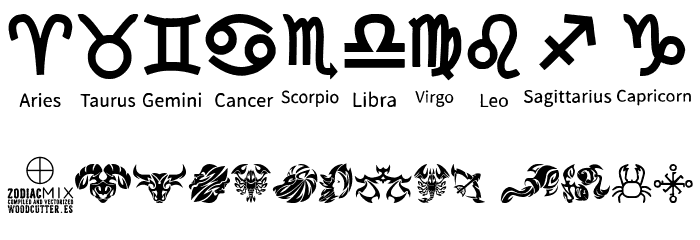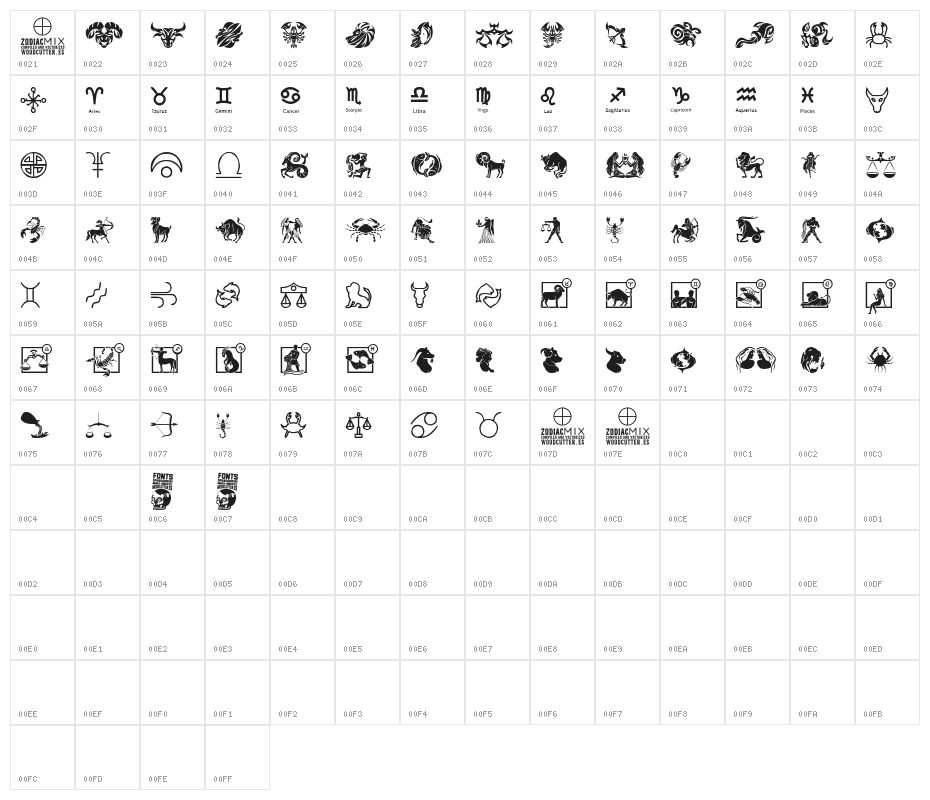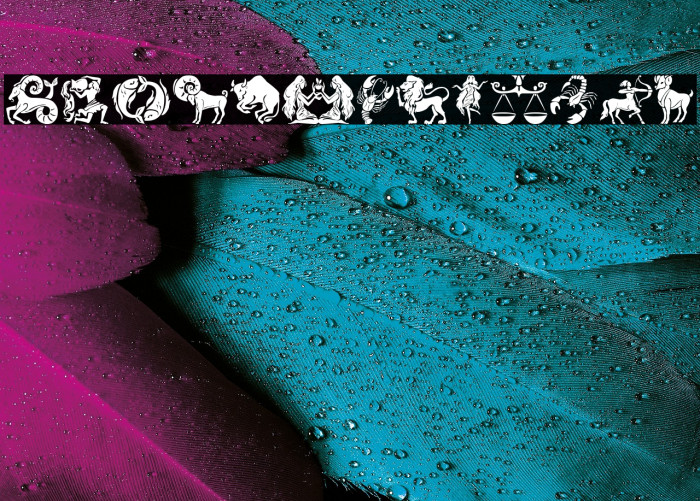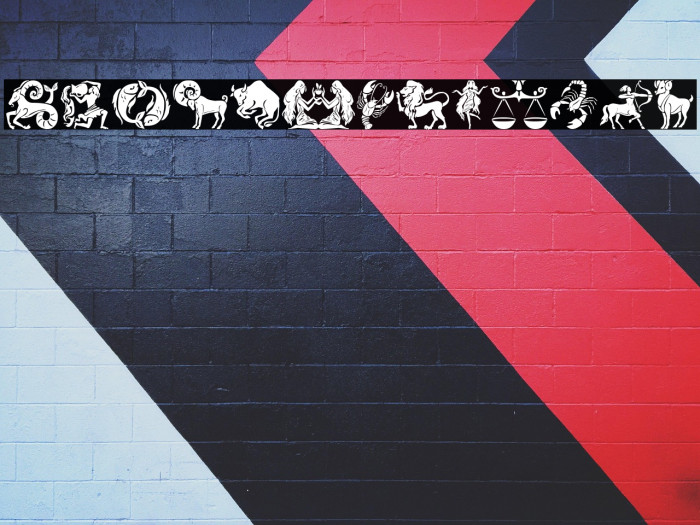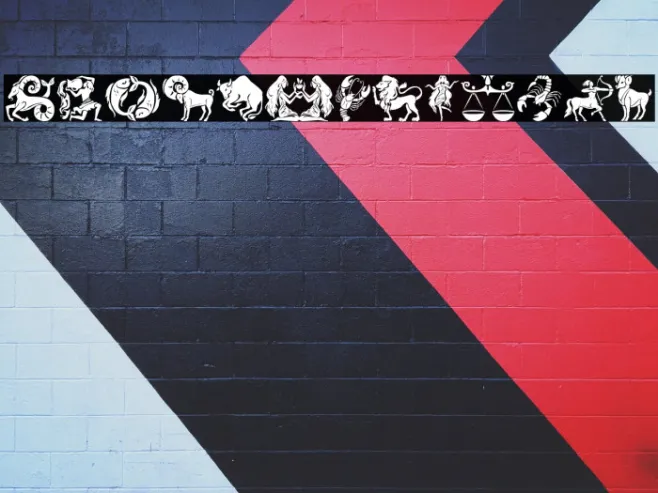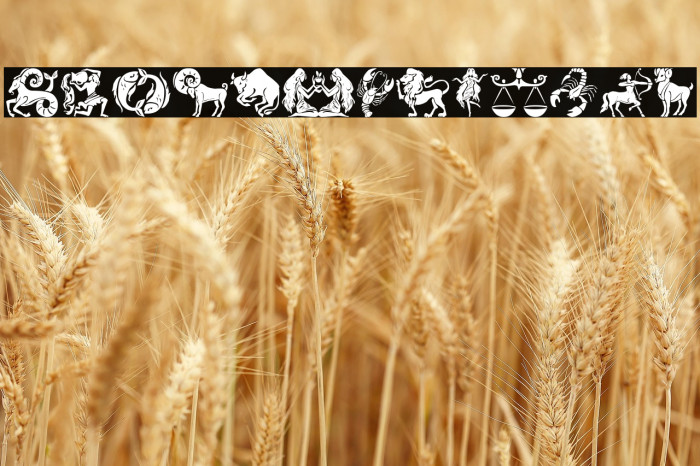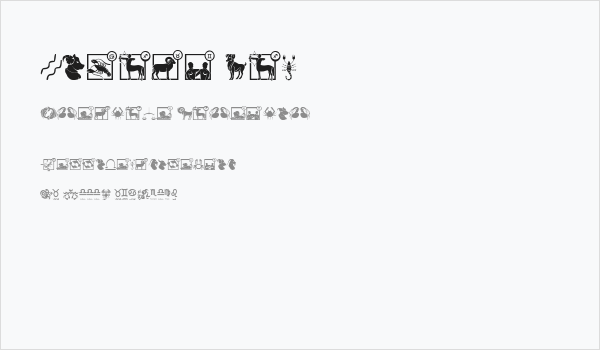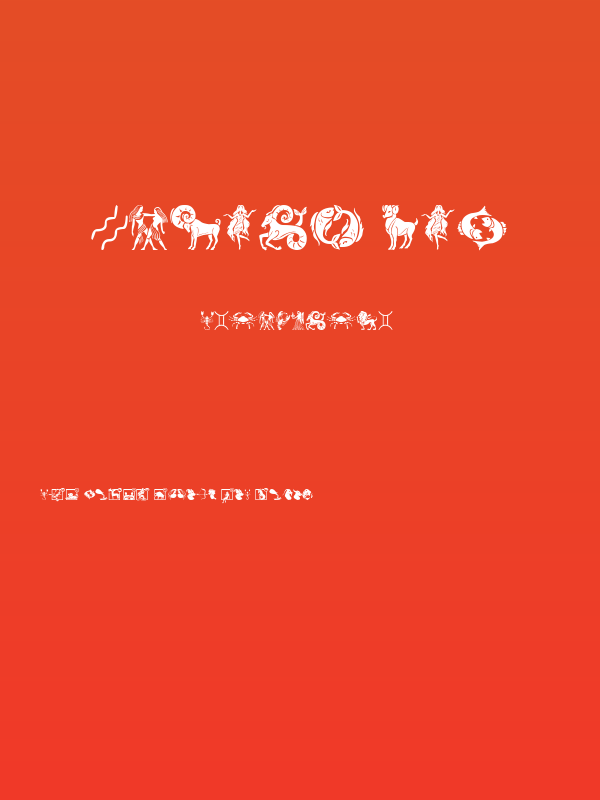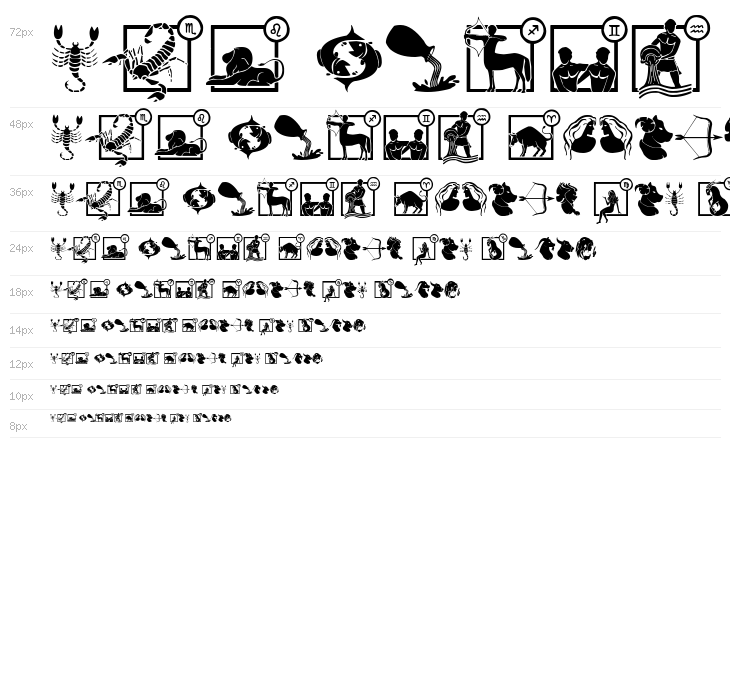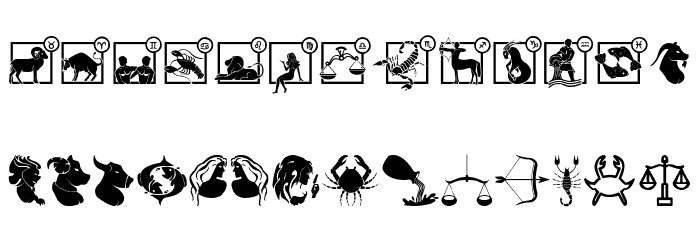
Zodiac Mix Font
Zodiac Mix Description
This collection features a diverse array of zodiac-themed symbols, each intricately designed to represent the twelve astrological signs. The symbols are bold and artistic, capturing the essence of each zodiac sign with unique and creative interpretations. The designs range from abstract to more literal representations, providing a versatile set of icons that can be used for various purposes. The style is decorative and expressive, making it suitable for projects that require a touch of mysticism or astrology-related themes. The symbols are well-crafted, with attention to detail that highlights the characteristics associated with each zodiac sign.
| Use Case | Logos, Decorative art, Astrology-themed designs |
| Proposed Projects | Ideal for astrology-themed designs, horoscopes, mystical branding, and decorative art projects. |